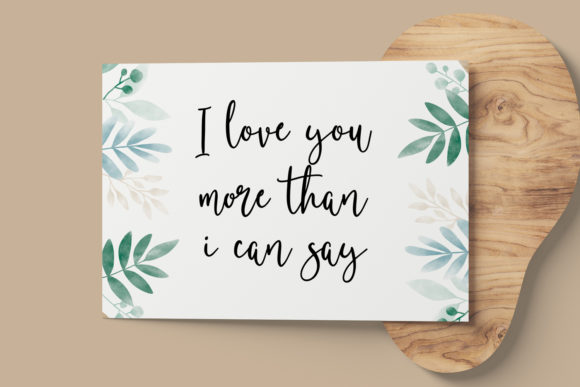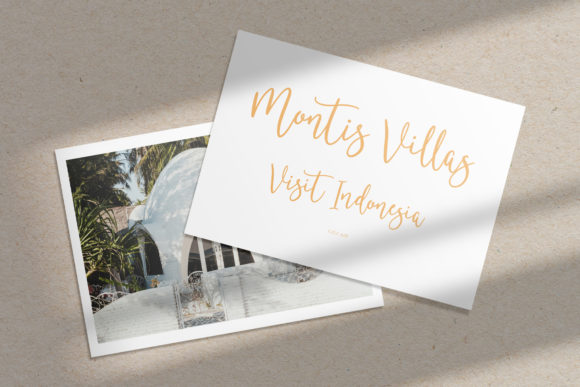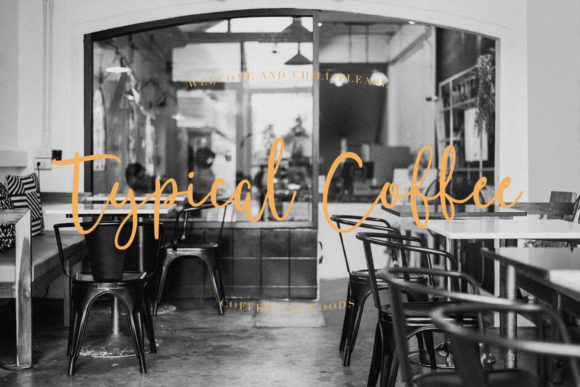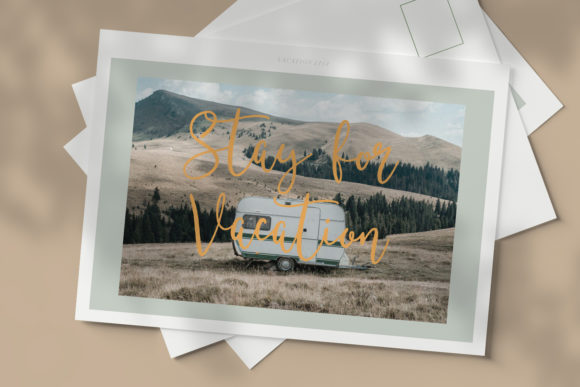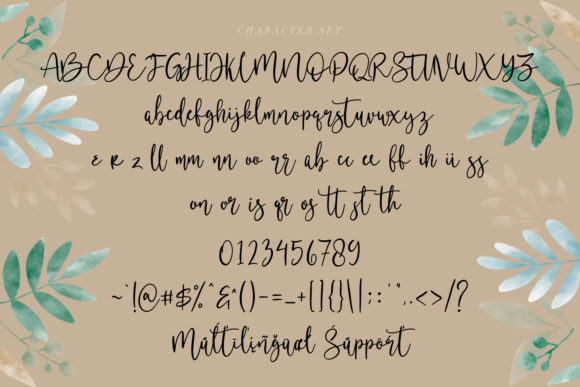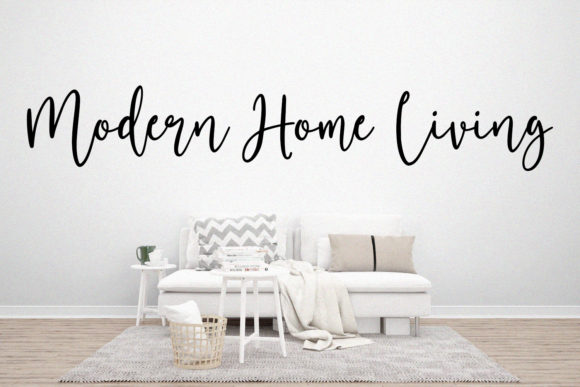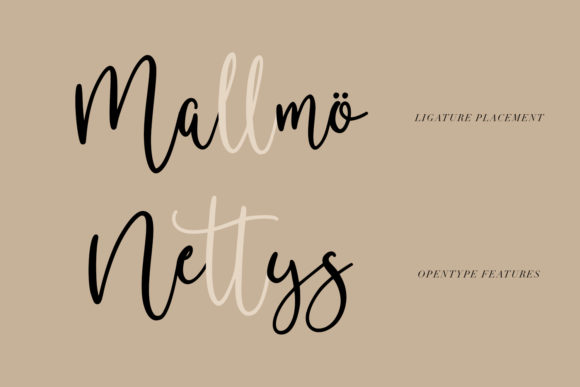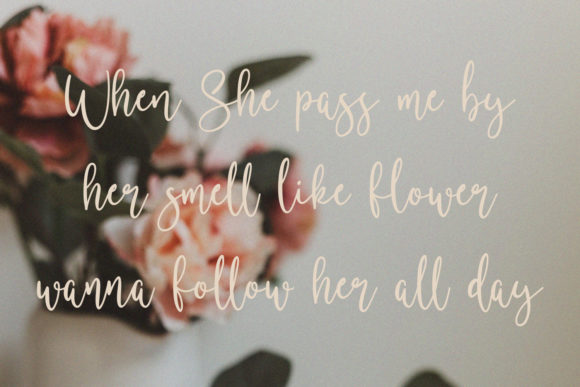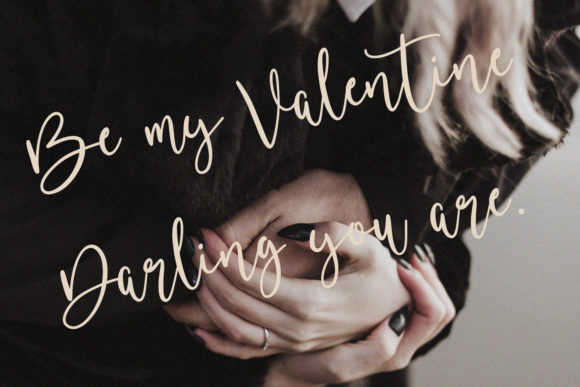
Buttersoy Font
About Buttersoy Font
Buttersoy is a beautiful light handwritten font with a unique feel and a stunning impact. It will add a luxury spark to any design project that you wish to create!